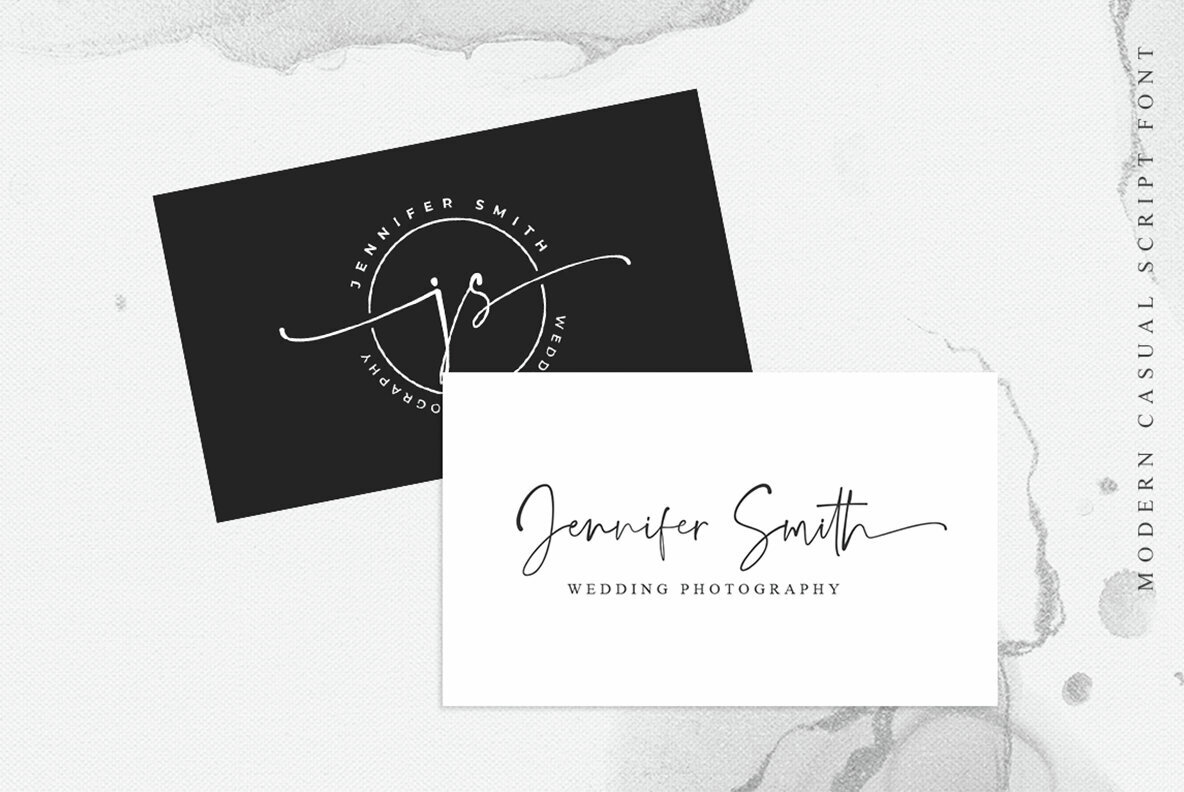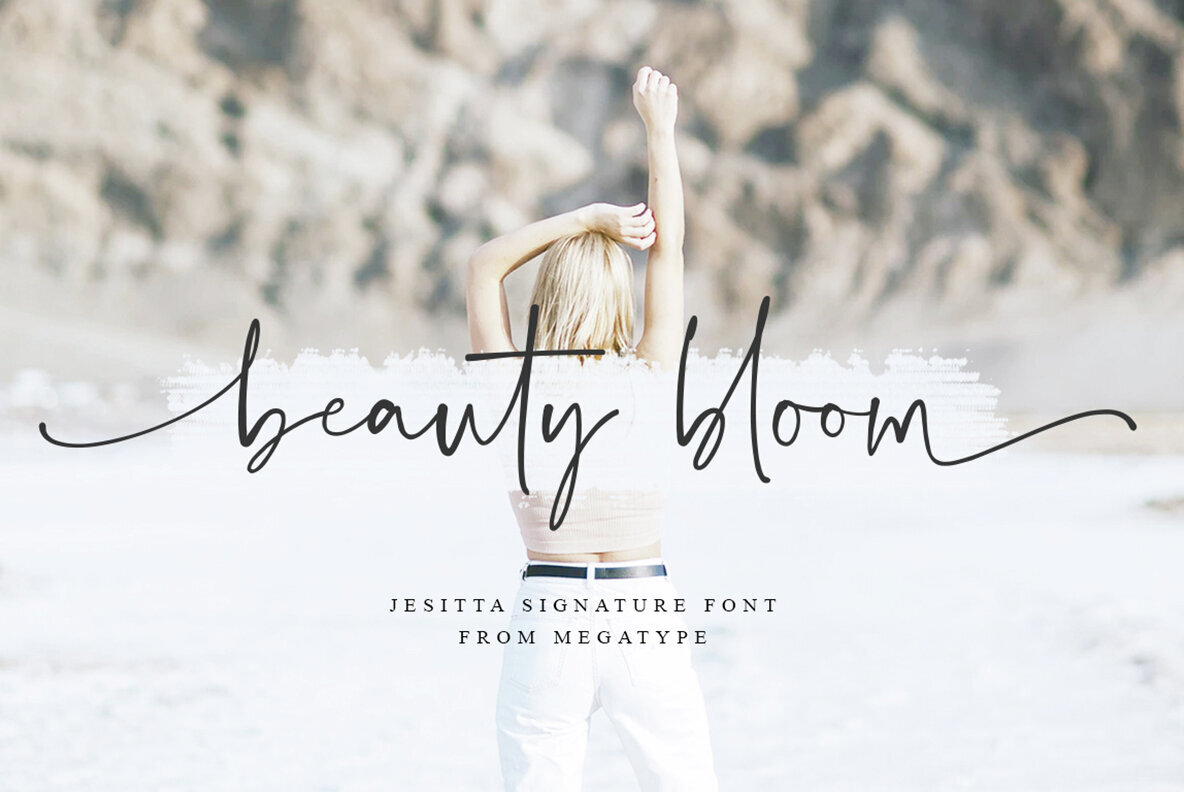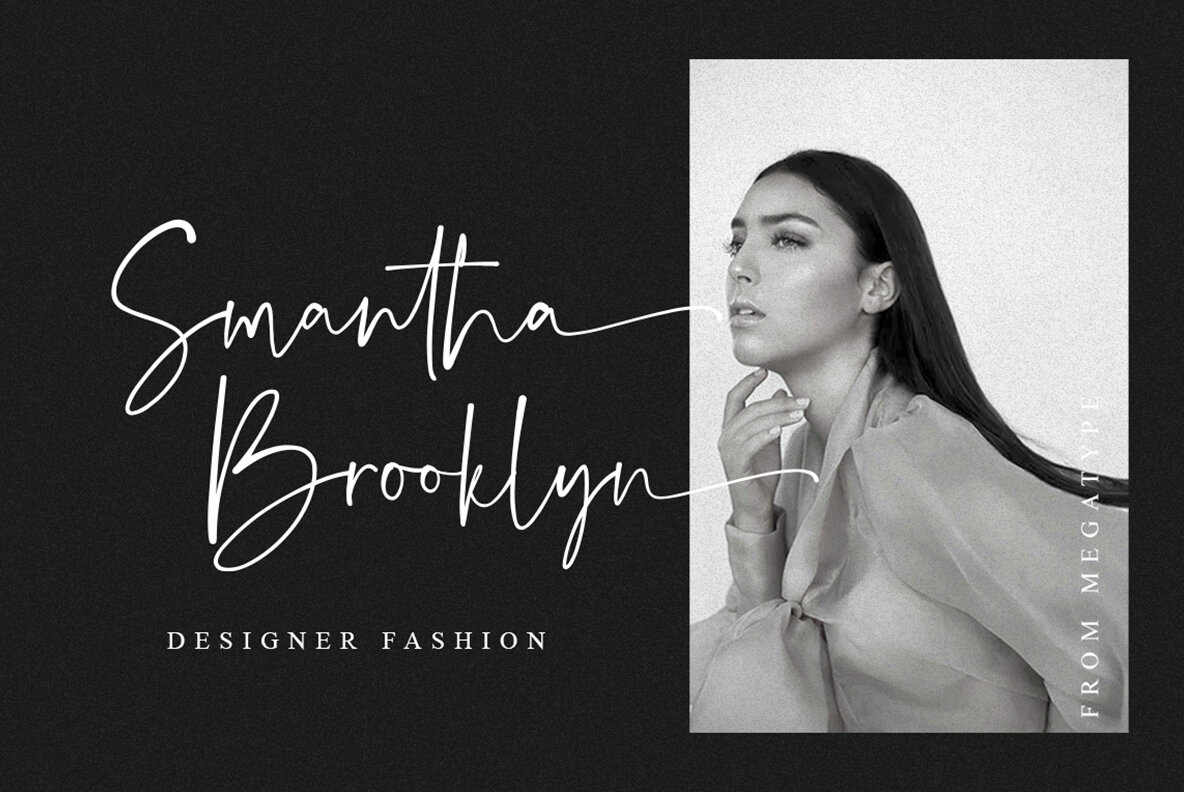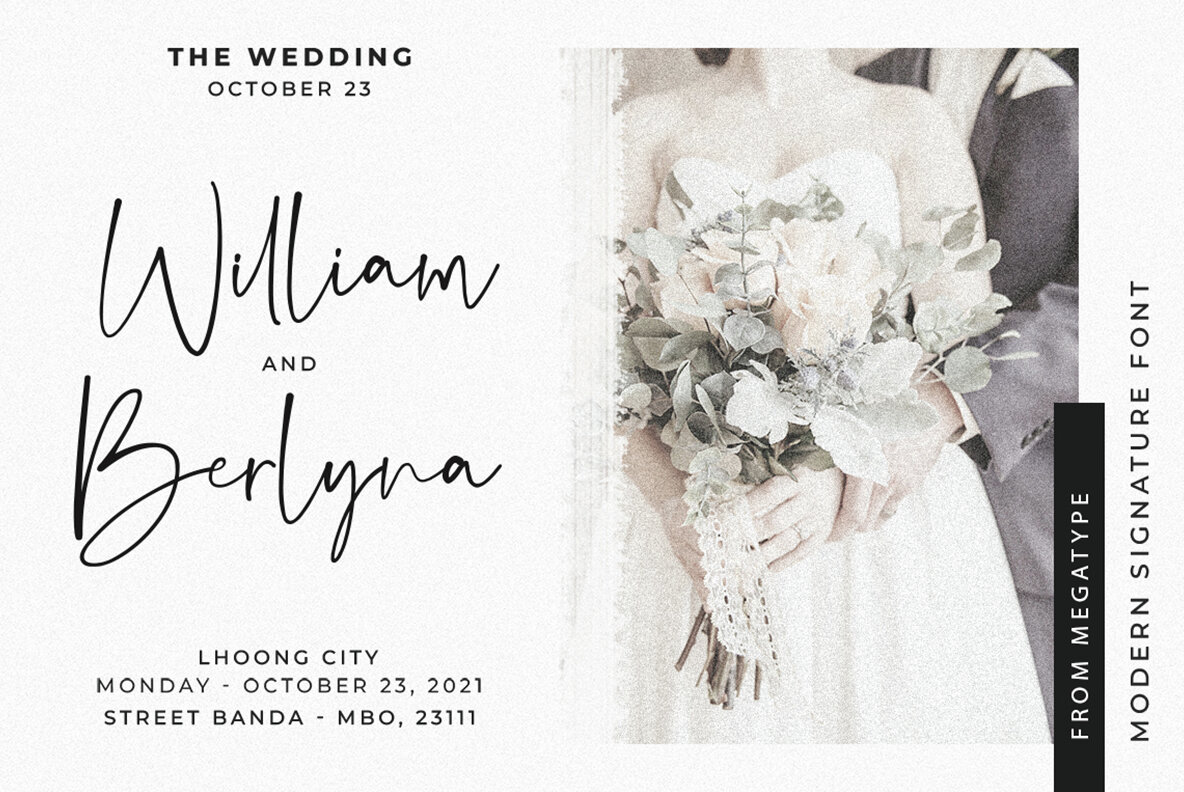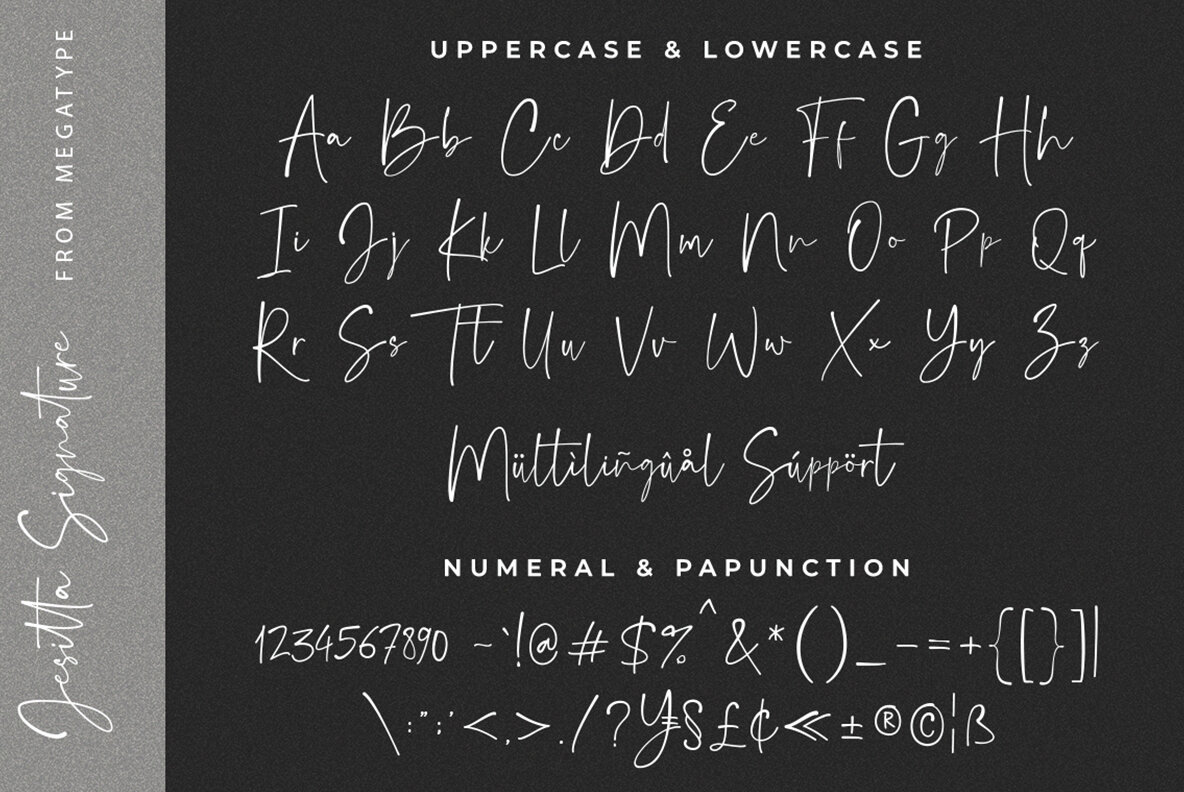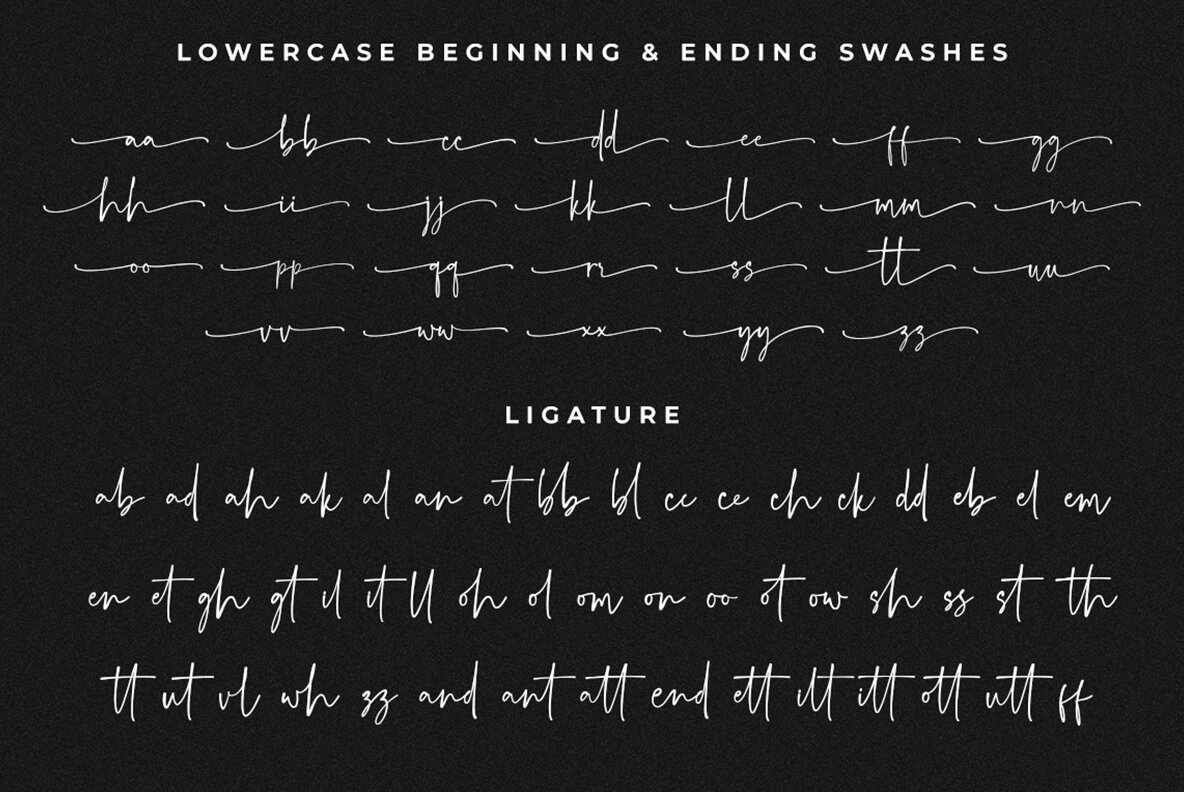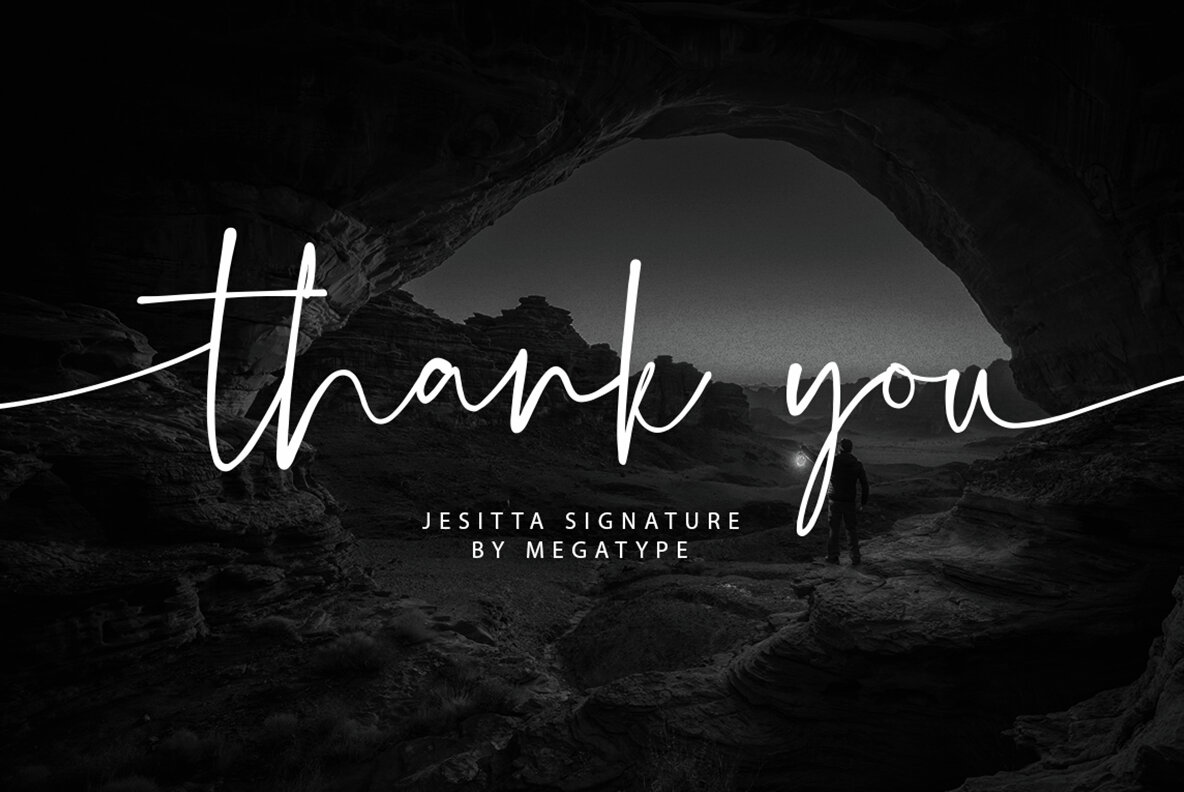
Jesitta Signature: Elegant Script Font with Modern Flair
Jesitta Signature Font exemplifies modern elegance with its graceful signature style, featuring magical ink strokes that elevate any design project.
• Photography Watermarks – Perfect for adding a personalized touch.
• Logos & Branding – Enhances brand identity with sophistication.
• Event Invitations – Ideal for weddings and other special occasions.
• Product Design – Adds elegance to labels and packaging.